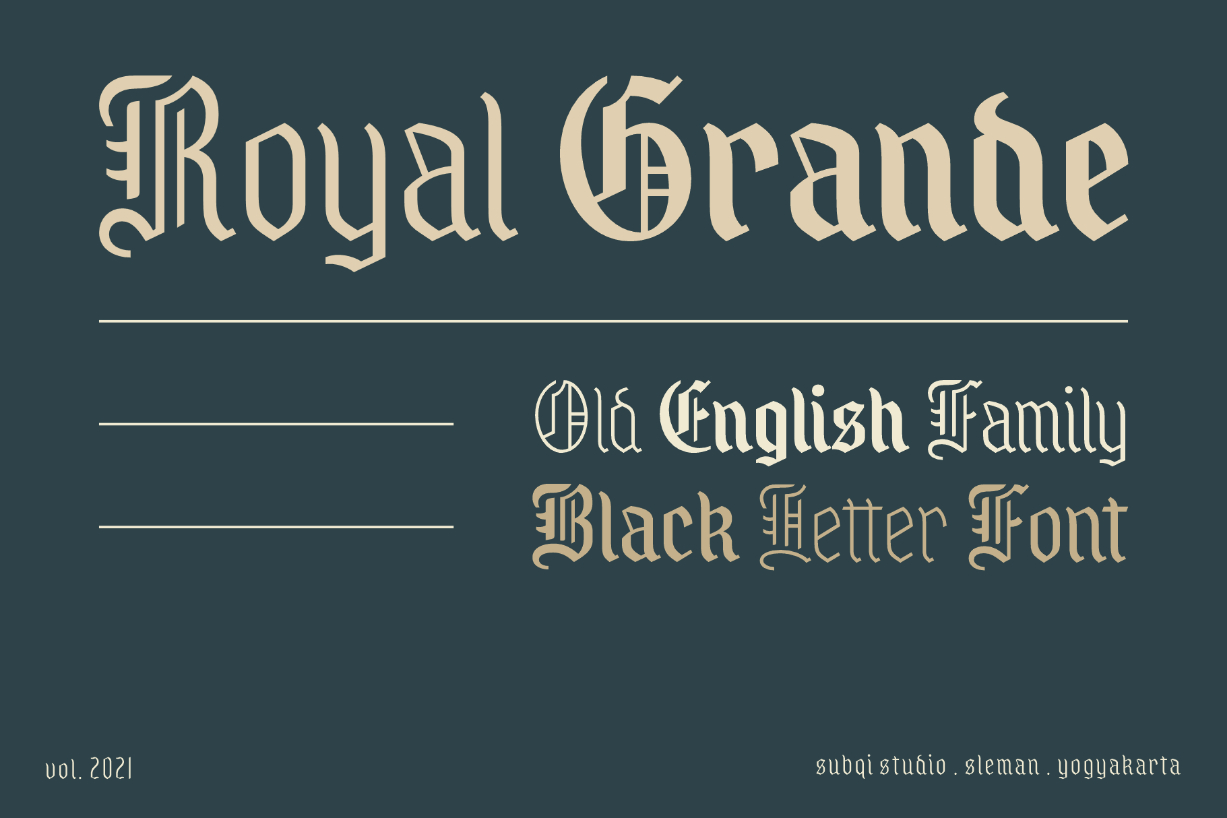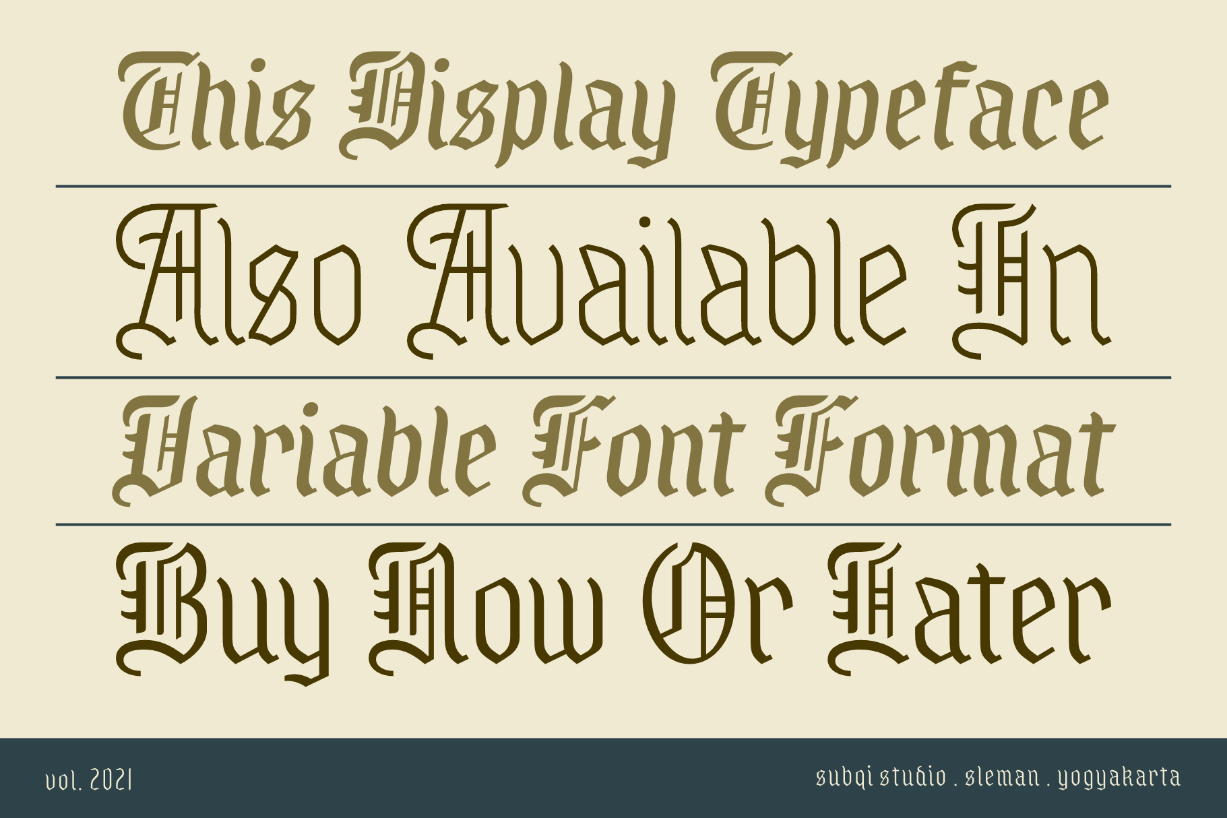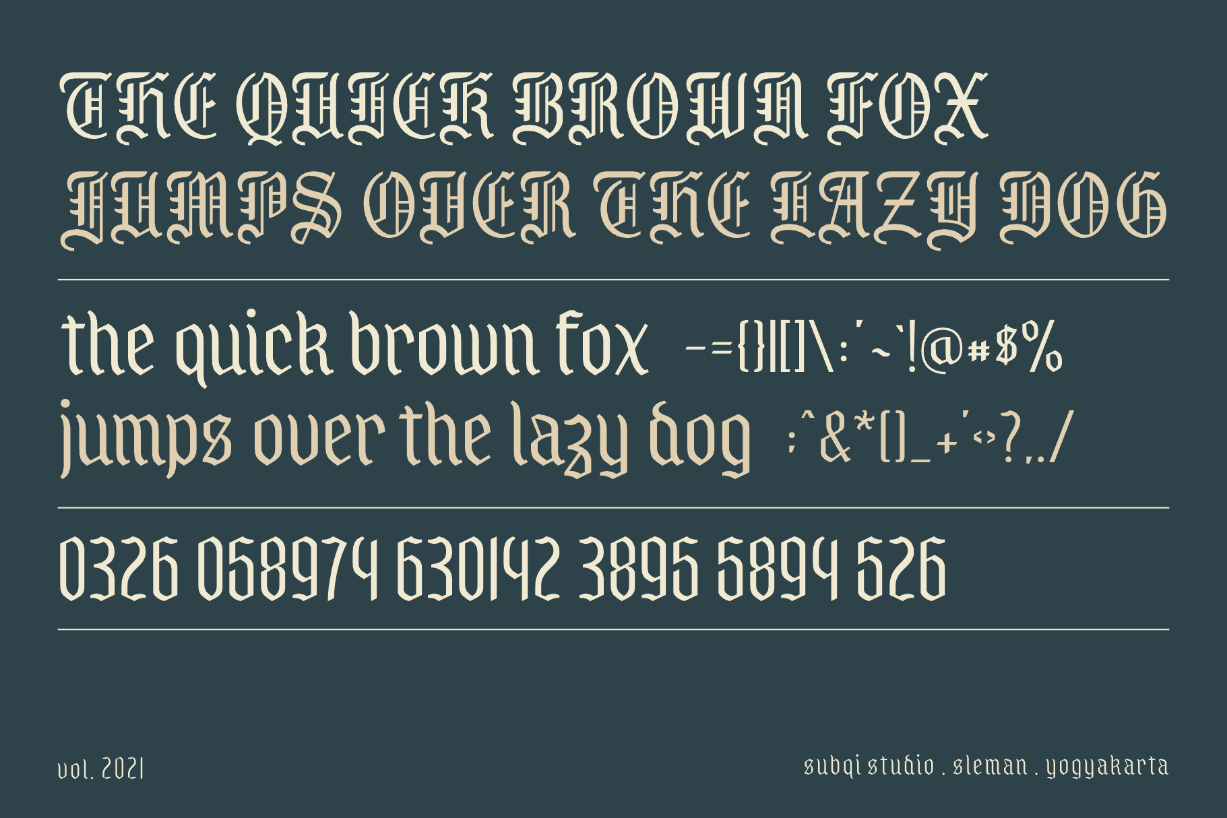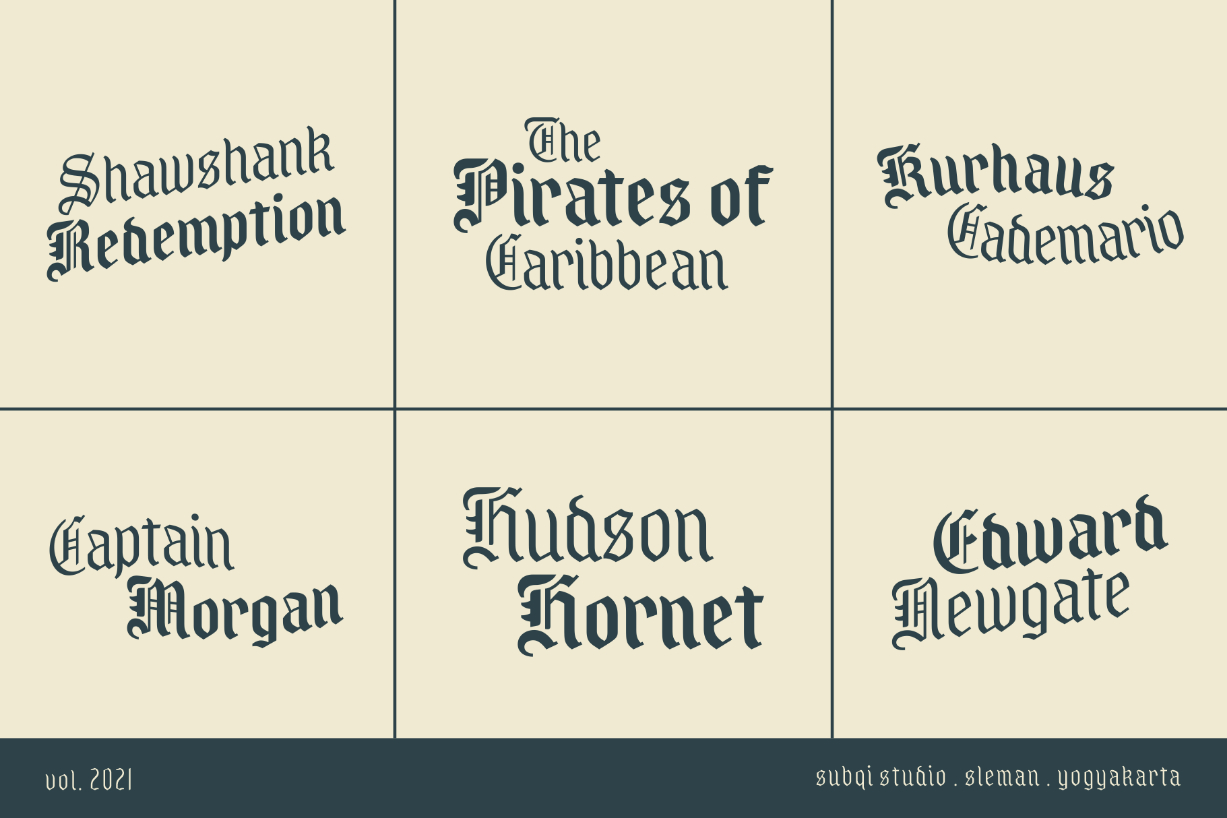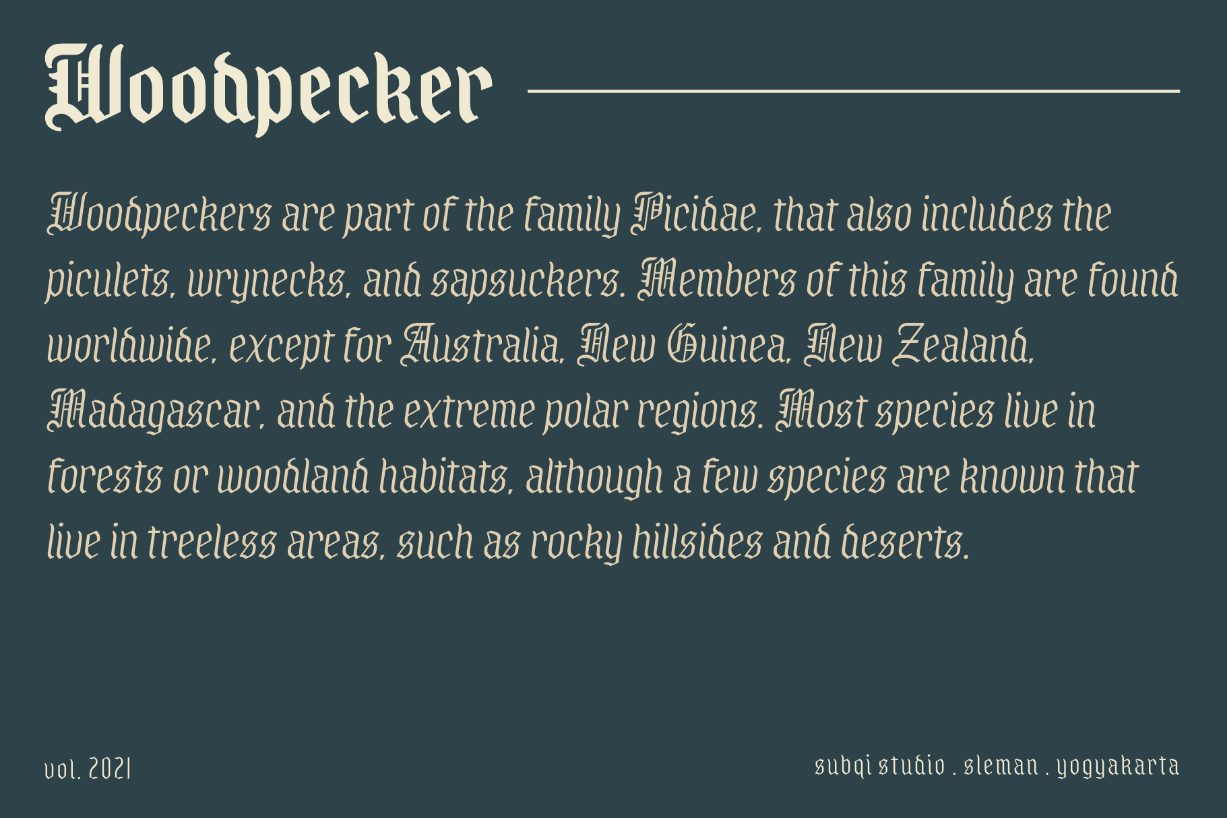
Royal Grande Font
About Royal Grande Font
Royal Grande is a distinct and highly detailed blackletter font. This font is imposing and features uniquely shaped letters, and as a result, it will easily match a wide range of creations that require a distinct touch.